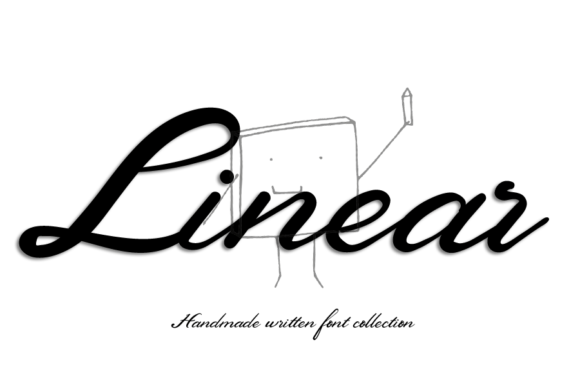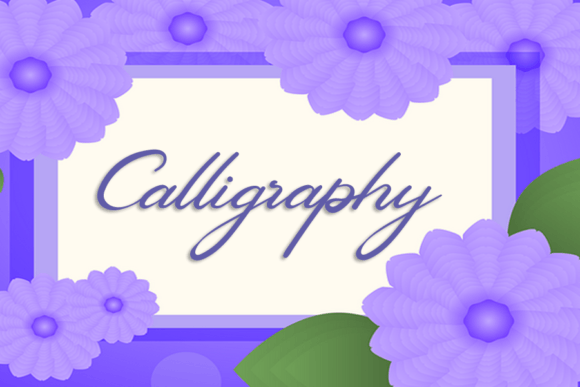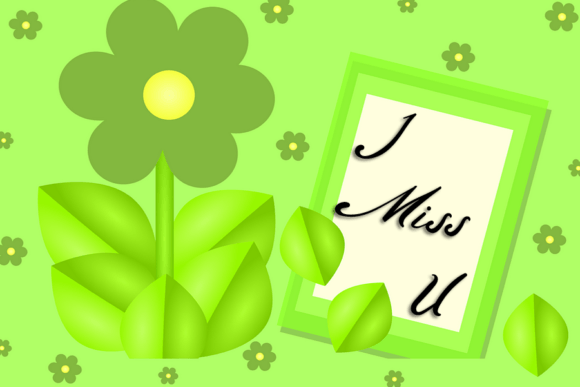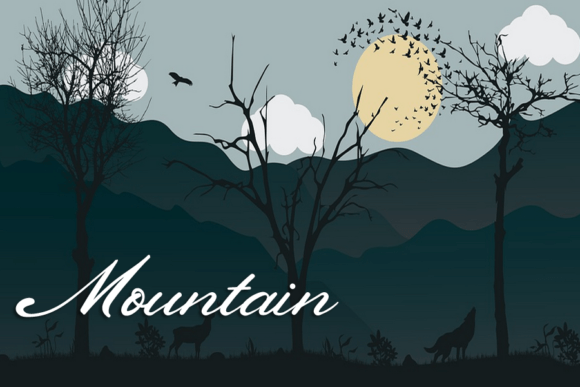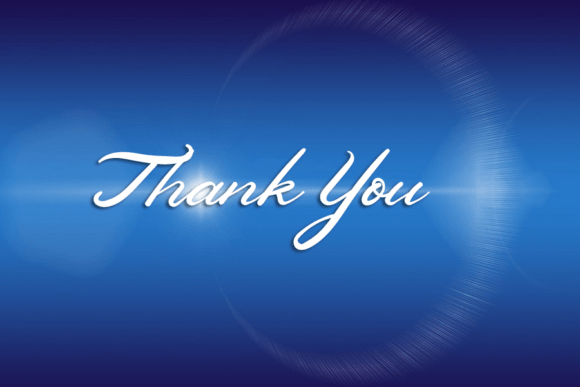
Linear Font
About Linear Font
“Linear” is a handwritten font that stands out for its simplicity, attractiveness, elegance, and charming quality. Its contemporary feel adds a touch of modernity, contributing to an overall sense of sophistication. This versatile font is well-suited for a wide array of applications, making it a valuable asset for design projects across various industries.
The simplicity of Linear makes it adaptable to different contexts, allowing it to convey a sense of refinement in every application. Its attractive and charming characteristics make it a suitable choice for a diverse range of products, responding effectively to specific design needs.
In the realm of formal work, Linear finds its place in invitations, labels, packaging, and menus. The font’s elegance enhances the visual appeal of these materials, adding a touch of class to events and products. Its adaptability extends to various industries, such as fashion, makeup, and stationery, where it can be seamlessly integrated into brand identities and product presentations.
Linear’s handwritten charm makes it a fitting choice for romantic novels, magazines, books, and greeting or wedding cards. Its ability to evoke a sense of intimacy and personal touch aligns perfectly with projects that require a warm and inviting atmosphere. The font’s versatility extends to the clothing industry, where it can enhance branding and label designs with its contemporary yet elegant aesthetic.
For digital applications, Linear is a great choice for posters, games, Instagram posts, websites, cartoons, YouTube content, and more. Its legibility and stylish appearance make it well-suited for a wide range of visual content, contributing to a cohesive and engaging design across platforms.
Whether applied to formal documents or creative projects, Linear’s adaptability makes it a go-to choice for designers. Its contemporary and charming characteristics make it a valuable asset in establishing brand identity and creating visually appealing designs. Overall, Linear’s ability to seamlessly blend elegance with modernity positions it as a font of choice for those seeking to make a lasting impact in various project designs.